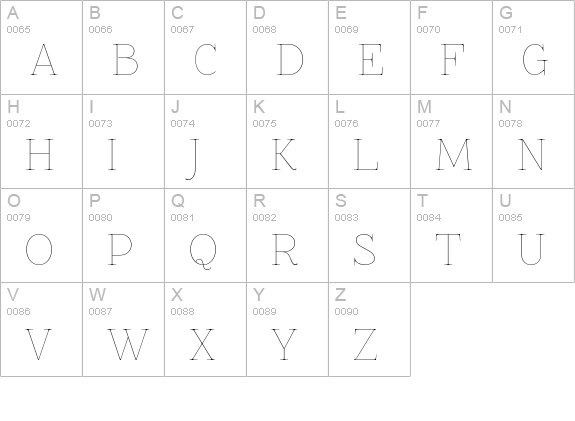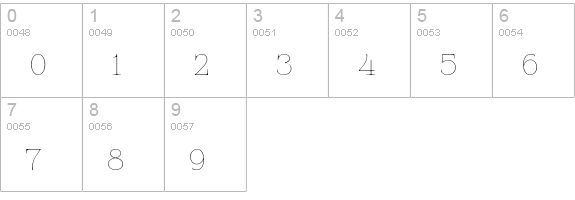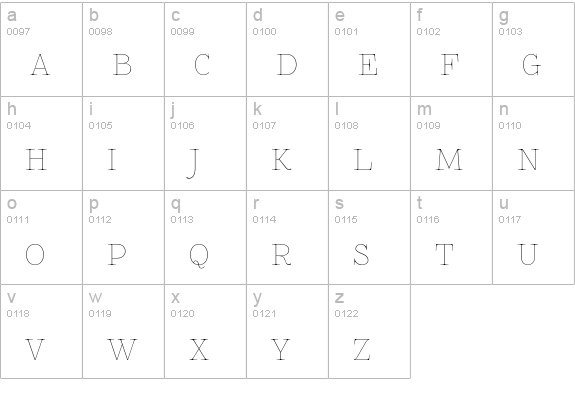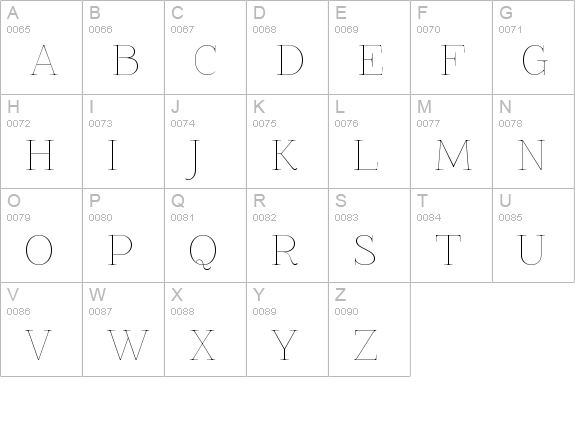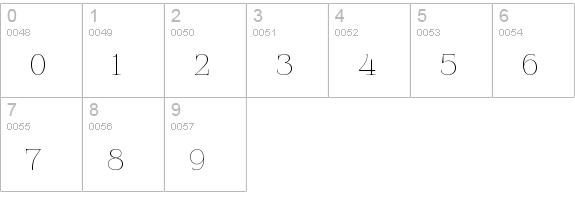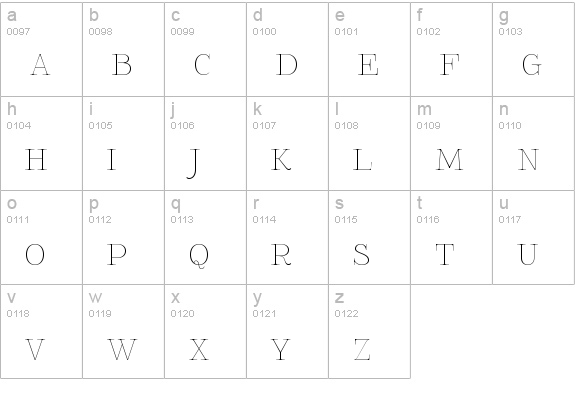
ZnikomitSC Font Details
ZnikomitSC is a captivating and versatile font that effortlessly combines elegance with a touch of vintage charm. With its unique and intricate letterforms, this font is sure to make a lasting impression on any design project. Its beautifully curved lines and delicate serifs exude a sense of sophistication and refinement, making it perfect for a wide range of applications. Whether you're designing a logo, branding materials, invitations, or even a website, ZnikomitSC will add a touch of class and character to your project. Its timeless appeal and versatility make it suitable for both formal and informal designs, giving you the freedom to explore various creative possibilities. One of the best things about ZnikomitSC is that it is completely free to download. You can easily access this stunning font at FontsMarket.com, a reliable source for high-quality fonts. By offering ZnikomitSC for free, the creators have made it accessible to designers and enthusiasts of all levels, ensuring that anyone can benefit from its beauty and versatility. So, if you're looking for a font that combines elegance, charm, and the convenience of being freely available, ZnikomitSC is the ideal choice. Download it today from FontsMarket.com and elevate your designs to new heights.